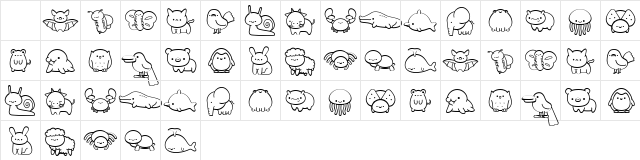
Complete Cute Animals Dingbat Regular glyph index. Displaying only characters natively supported by Cute Animals Dingbat Regular font.
Cute Animals Dingbat is a composed and adaptable typeface that performs quietly and consistently across a wide range of design contexts.